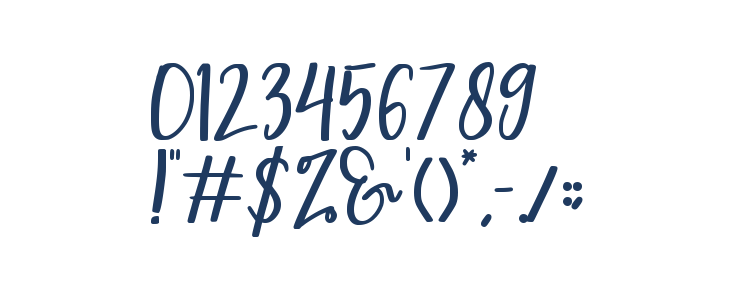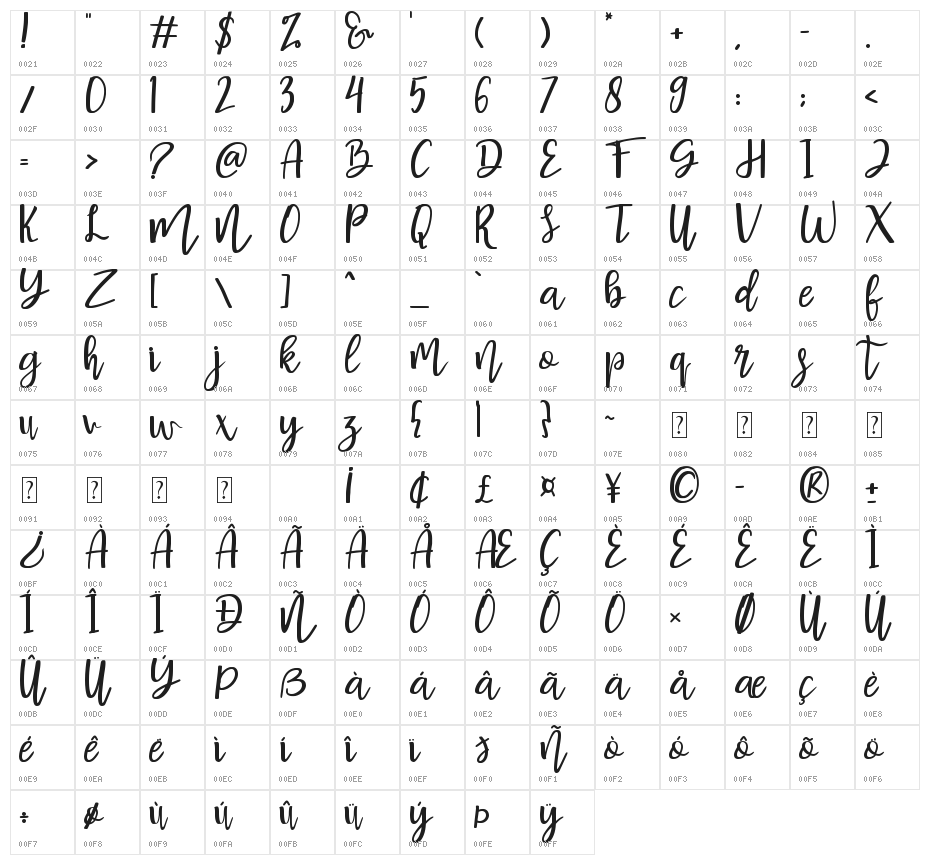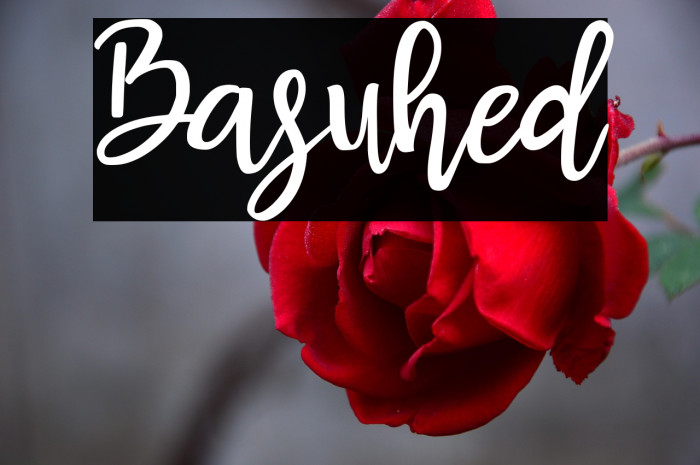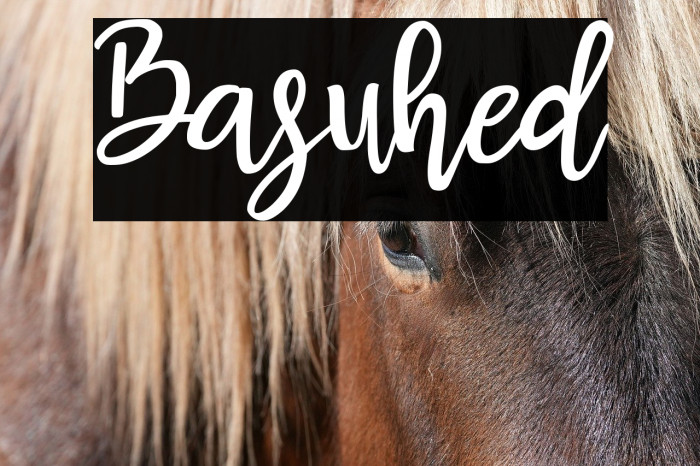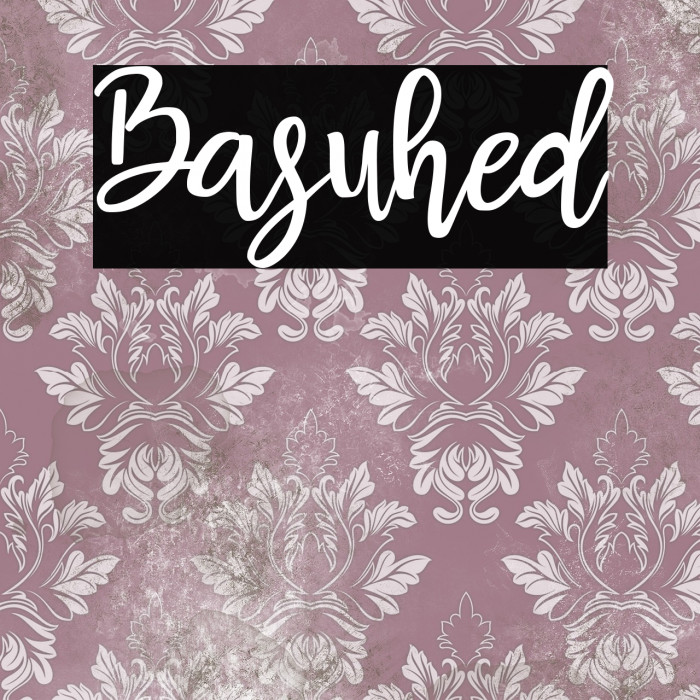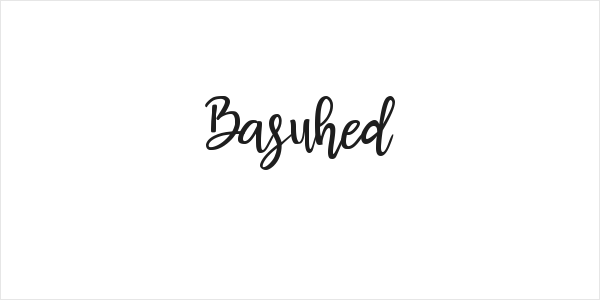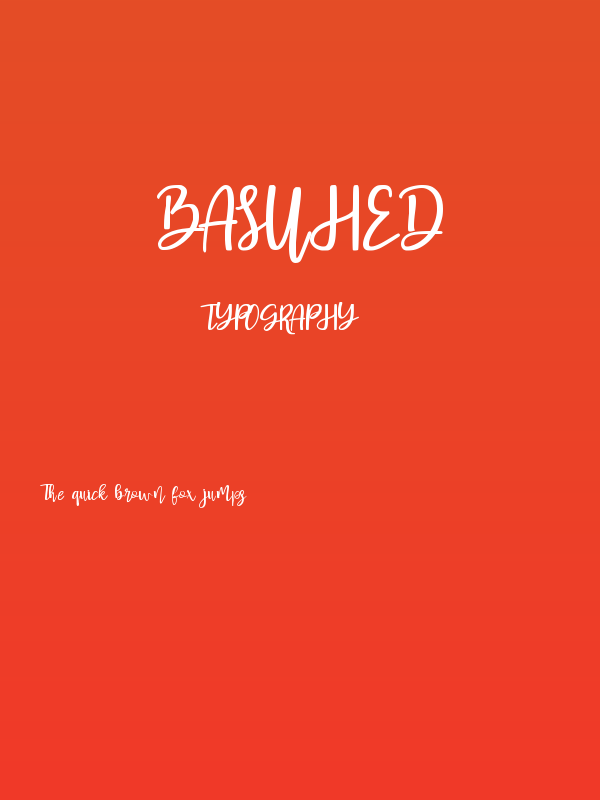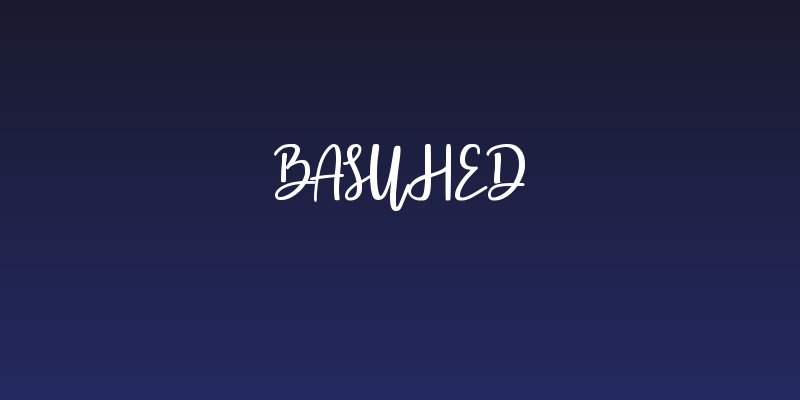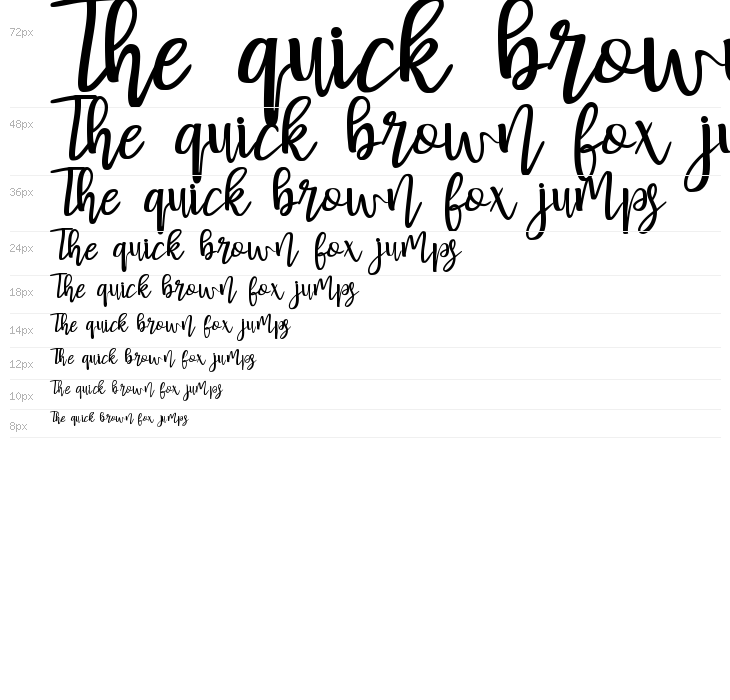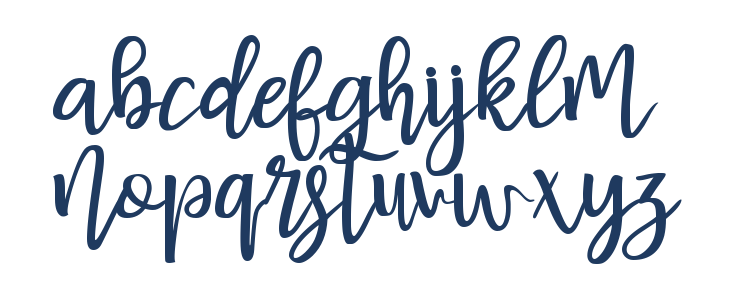
Basuhed Font
Basuhed Description
This font features a lively and dynamic handwritten style, characterized by its fluid and cursive letterforms. The uppercase and lowercase letters exhibit a consistent slant, creating a sense of movement and energy. The strokes are bold and confident, with varying thickness that adds a touch of elegance and personality. The numbers and special characters maintain the same playful and expressive quality, making the font versatile for various design needs. Its overall appearance is both modern and approachable, suitable for projects that require a personal and informal touch.